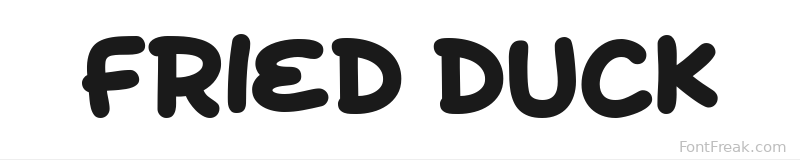
Fried Duck
About Fried Duck
Fried Duck by Syaf Rizal is a whimsical display font that captures attention with its playful character. This typeface exhibits bold, rounded forms that lend a friendly and approachable vibe, making it ideal for a variety of creative projects. The font features a consistent stroke weight that maintains legibility while adding a touch of personality. With its minimal contrast and spacious letter spacing, Fried Duck offers a modern look that stands out without overwhelming the senses. Its unique design elements, such as soft curves and rounded edges, enhance its playful aesthetic, making it perfect for creative applications.
This font's versatility makes it well-suited for numerous use cases. Graphic designers can utilize Fried Duck for vibrant restaurant menus that reflect a casual dining experience. Small business owners may find it perfect for branding materials, like flyers or social media graphics, to create a fun and memorable impression. Additionally, the font works wonderfully for children's book covers or playful event invitations, where a lighthearted feel is essential. Content creators can also leverage Fried Duck in video graphics or online content to evoke a sense of joy and creativity.
Targeting graphic designers, small business owners, and content creators alike, Fried Duck font free download presents an opportunity to enhance visual storytelling. Its distinctive style ensures that it will capture the attention of any audience. In a world filled with countless typefaces, Fried Duck stands out with its charming, playful design that encourages creativity and engagement, making it a valuable addition to any designer's toolkit. This font is not just a typeface; it's a statement of personality and fun, perfect for those looking to make a lasting impression.